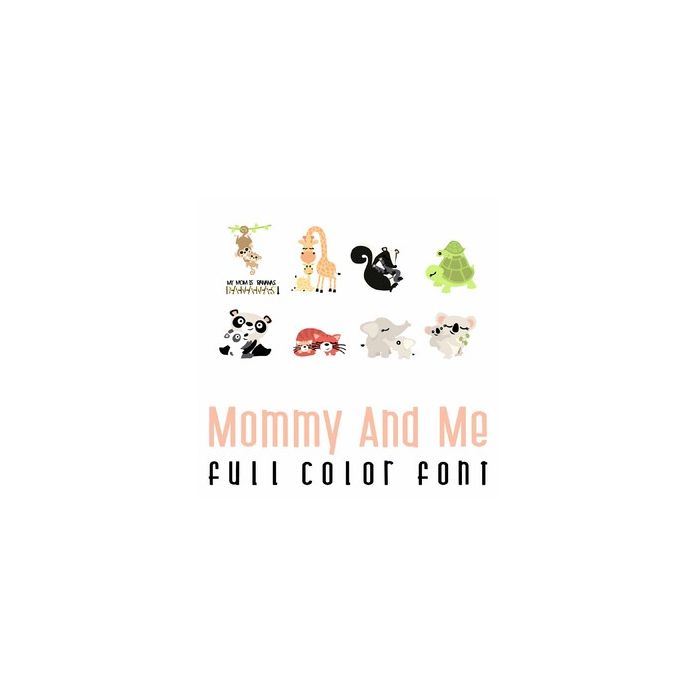
This adorable full-color doodlebat font features adorable mom and child animals. Perfect for Mother's Day, cards, crafts, gifts, decor, scrapbook pages, planner stickers, and more!